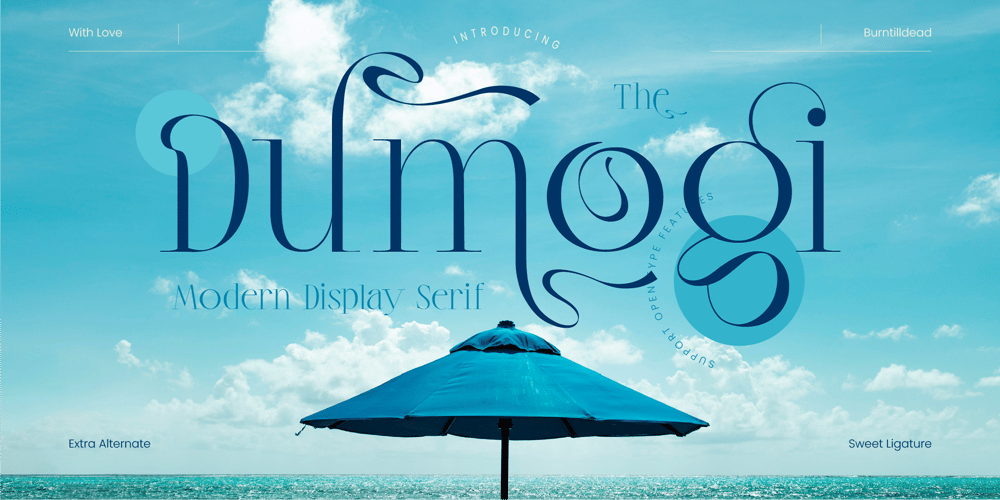
Dumogi Font Family was designed by Eric Kurniawan and published by Burntilldead. Dumogi contains 2 styles and family package options. Dumogi font is a modern stylish font. Made to bring elegant, classy and unique looks for your design project.This kind serif style is really easy to applied in many media. yea you know what i mean…. this style is been used by decade to re-present prestigious looks…. also with “Dumogi” font, you can easily bring a good mood in to the design by adding the alternate characters. Dumogi font contains of 428 glyphs with many unique and interesting alternative options.This font is have best result for logo, letter head, tote bag, hat, umbrella, key chain, t-shirt, menu, etc.